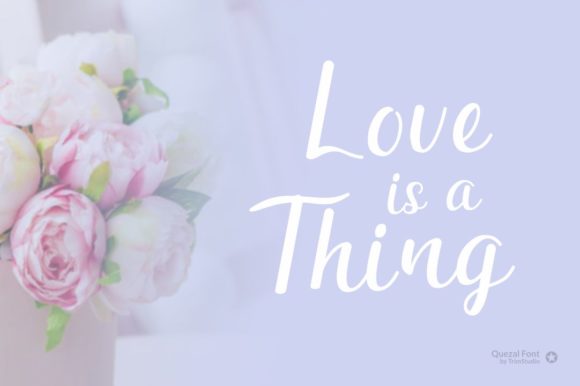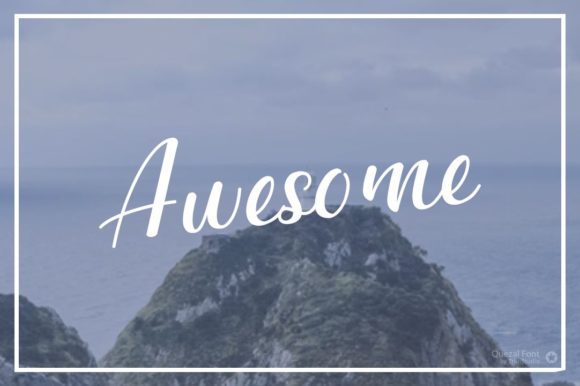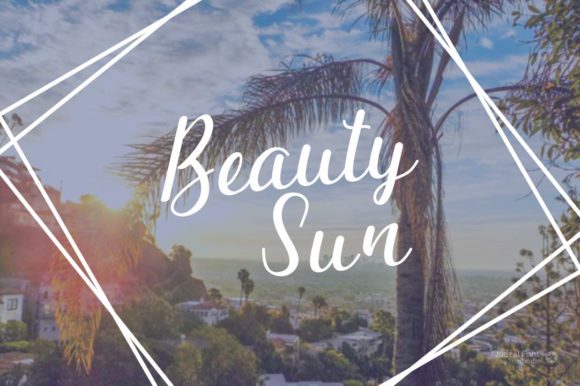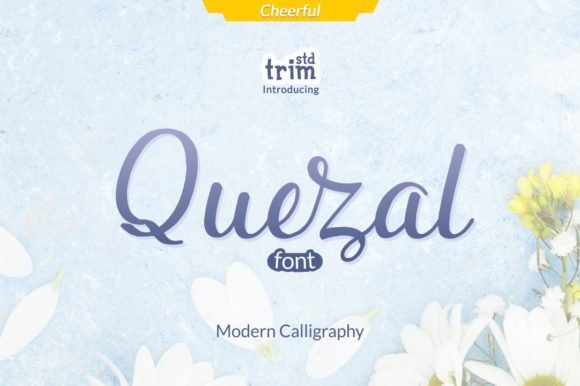
Introduction to Quezal Font
Quezal embodies fun, playfulness and authenticity.
This enchanting handwritten font will turn any creative idea into a true standout .
Key Features of Quezal Font
Why Choose Quezal Font?
Quezal Font offers exceptional quality and versatility, making it a valuable addition to your design toolkit. Whether you’re creating for personal projects or commercial use, Quezal Font delivers professional results.